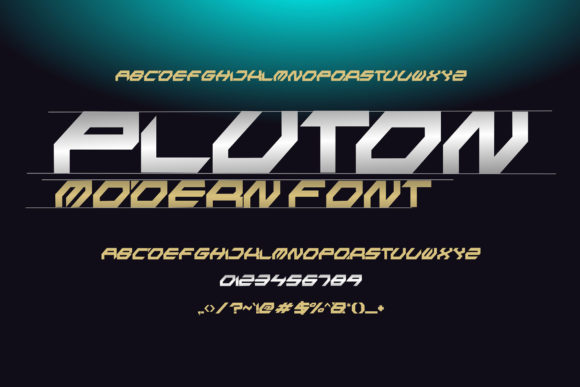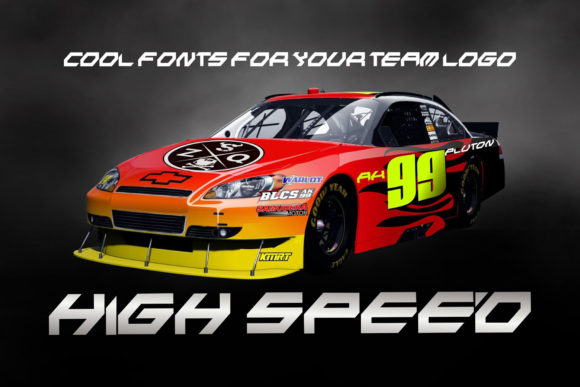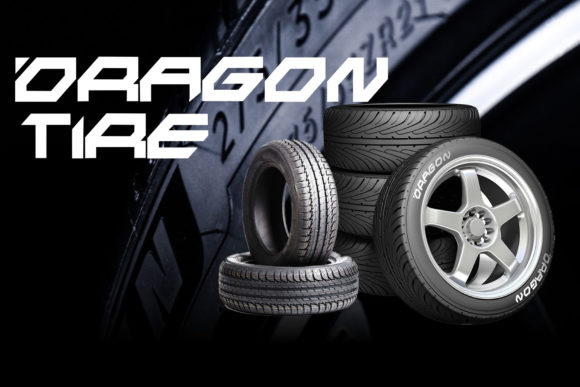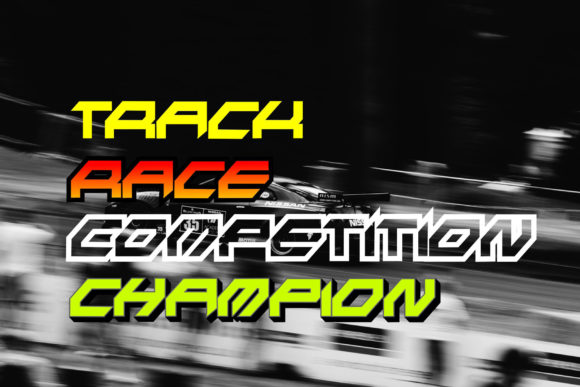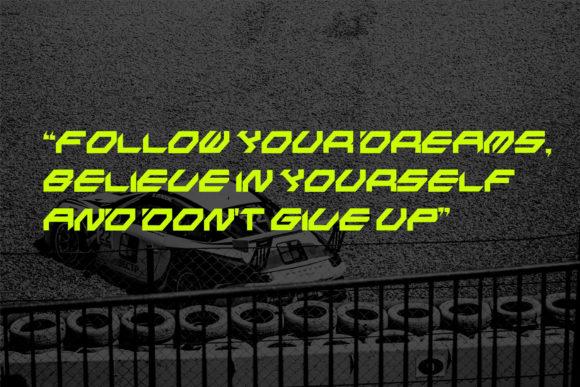
Introduction to Pluton Font Font
Fonts play a crucial role in design, and the Pluton Font font is a typeface that brings both character and versatility to any project. Whether you’re working on a branding project, a website, or a print design, the Pluton Font font offers a unique style that can elevate your work.
Pluton is a Futuristic Font with an incredibly strong and decisive form, making it very suitable for logotypes, merchandise, especially racing projects.
Key Features of Pluton Font Font
Why Choose Pluton Font Font?
The Pluton Font font is more than just a typeface – it’s a design tool that helps you communicate your message with style and clarity. Its unique character set and versatile design make it suitable for a wide range of applications, from elegant invitations to bold headlines.
With its carefully crafted letterforms and balanced proportions, the Pluton Font font ensures readability and visual appeal across all mediums.
What makes Pluton Font font special?
The Pluton Font font stands out with its unique design, exceptional readability, and versatility across various design applications.